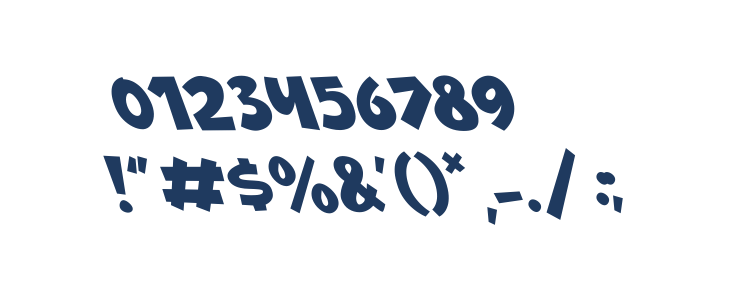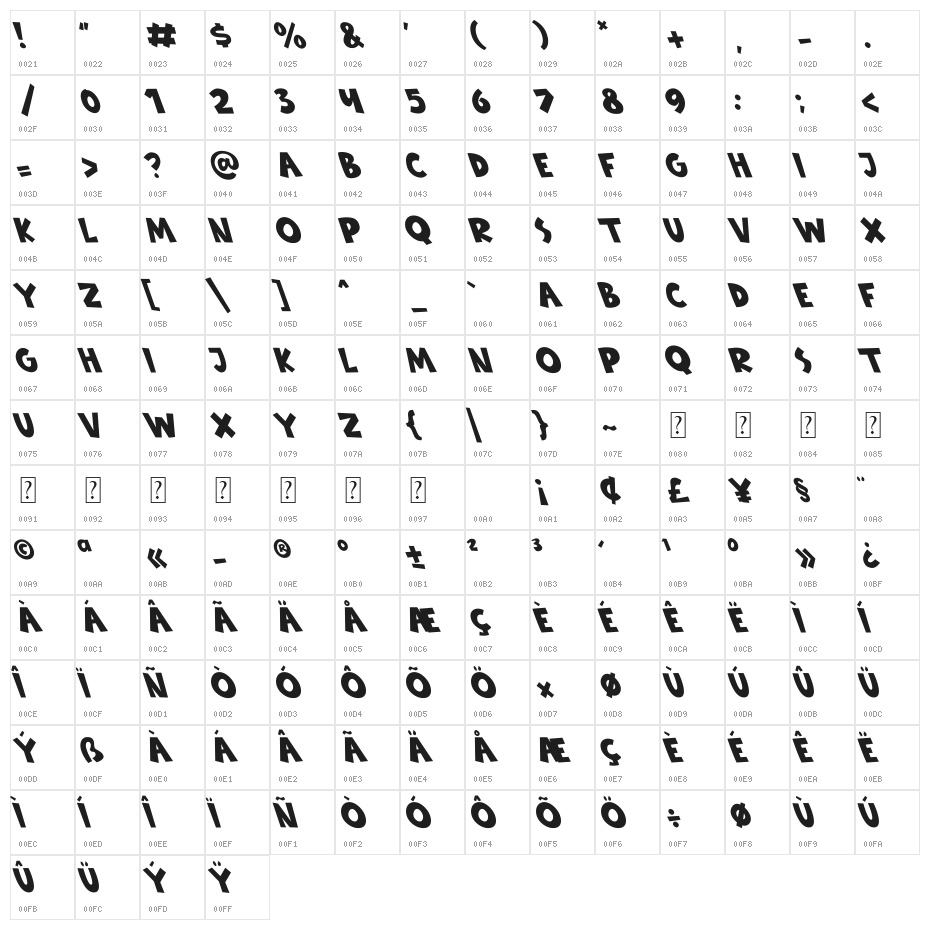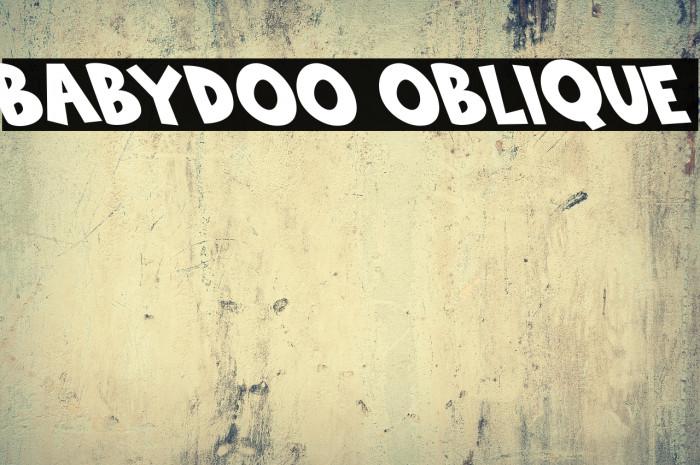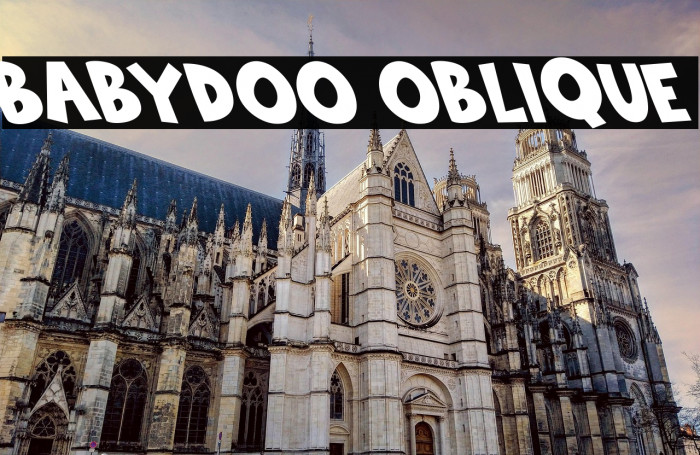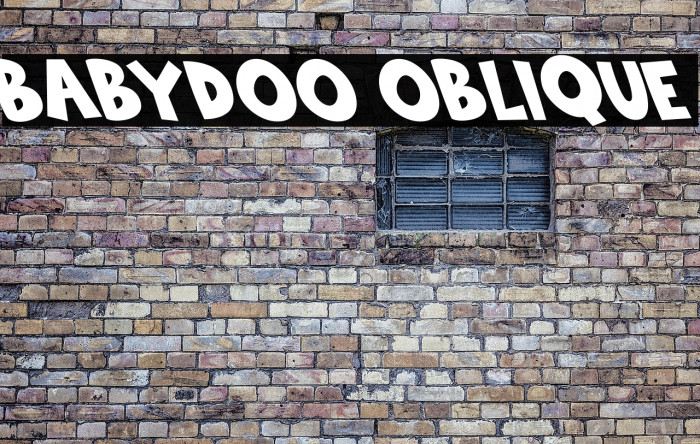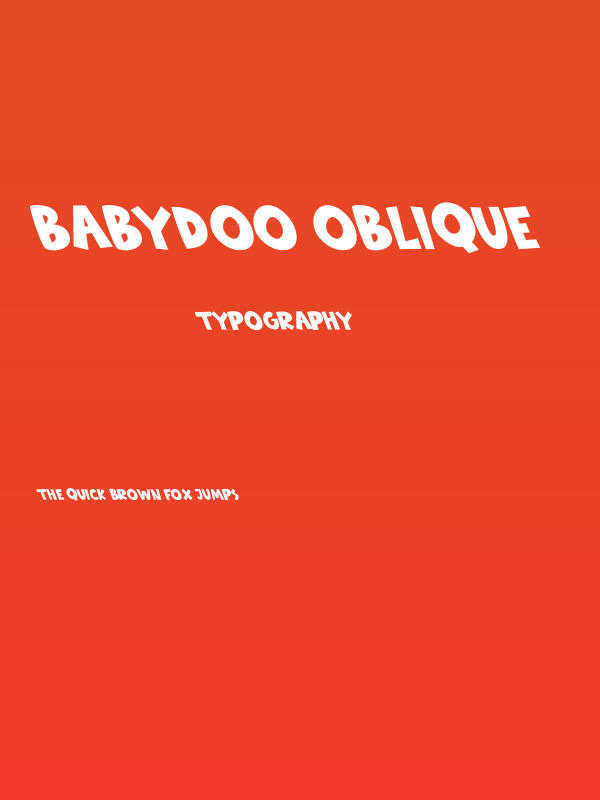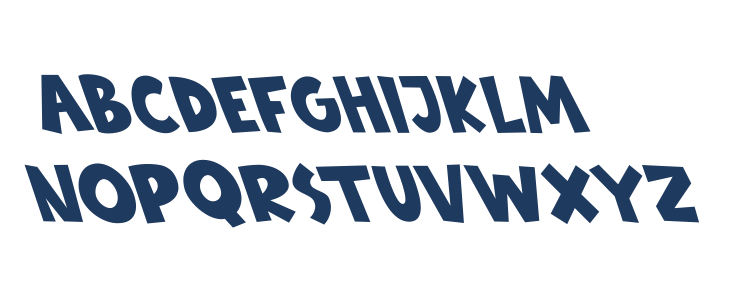
Babydoo Oblique Font
Babydoo Oblique Description
This playful and dynamic font features bold, exaggerated letterforms with a distinct oblique slant, giving it a lively and energetic appearance. The characters are thick and robust, with a slightly irregular shape that adds a whimsical touch. The font's exaggerated angles and curves create a sense of movement and fun, making it ideal for projects that require a youthful and vibrant aesthetic. Its bold presence ensures readability while maintaining a unique style that stands out. The font includes a full set of uppercase and lowercase letters, numbers, and a variety of special characters, all maintaining the same playful and bold design.
| Overall Style | Playful, Energetic, Whimsical |
| Proposed Projects | Perfect for children's books, playful branding, event posters, and any project needing a fun, energetic vibe. |